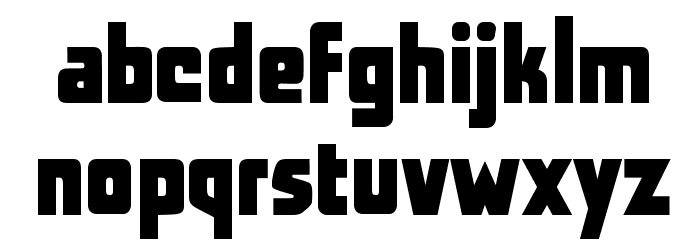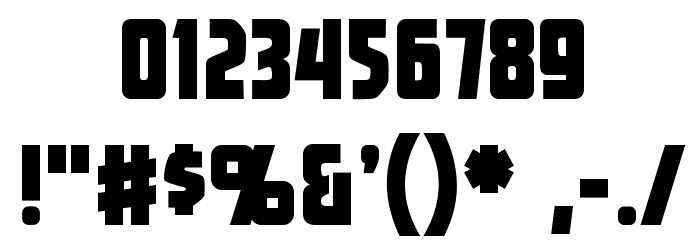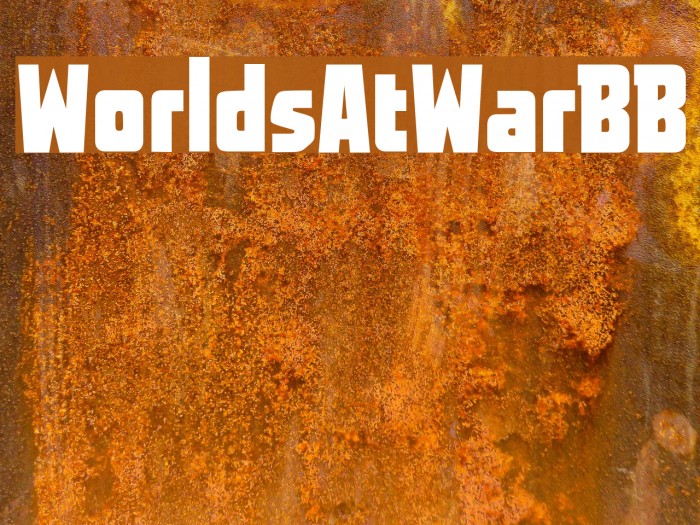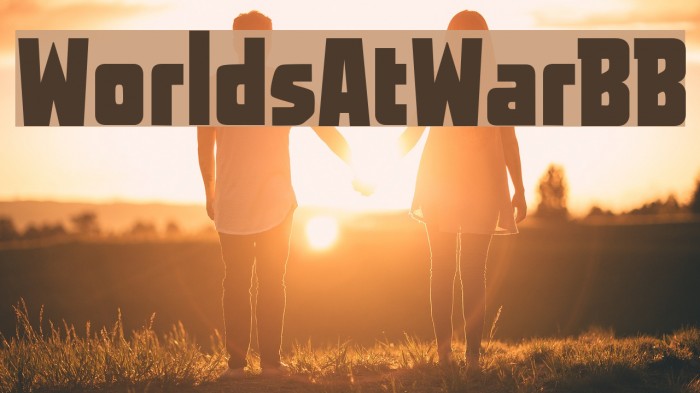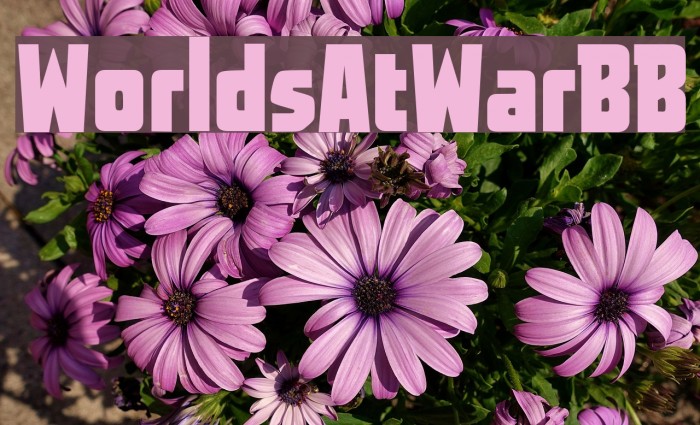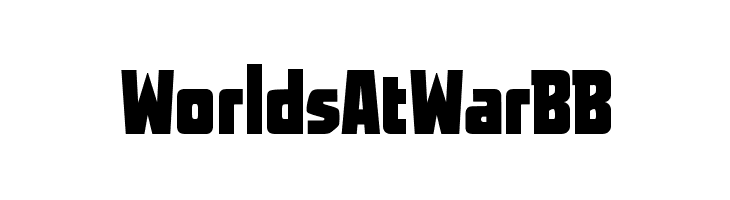
WorldsAtWarBB Font
This font features a bold and impactful design with strong geometric shapes and a slightly condensed appearance. The uppercase letters are robust and commanding, while the lowercase letters maintain a consistent style that complements the uppercase. The numerals are clear and easy to read, with a uniform thickness that matches the overall boldness of the font. Special characters are designed with the same attention to detail, ensuring they integrate seamlessly with the rest of the typeface. The font's style is reminiscent of military or industrial themes, making it suitable for projects that require a strong and assertive visual presence.
A bold, geometric font with a military-inspired design.
- Proposed Projects: Ideal for posters, video game titles, branding for action-oriented products, and any project requiring a strong, bold typeface.